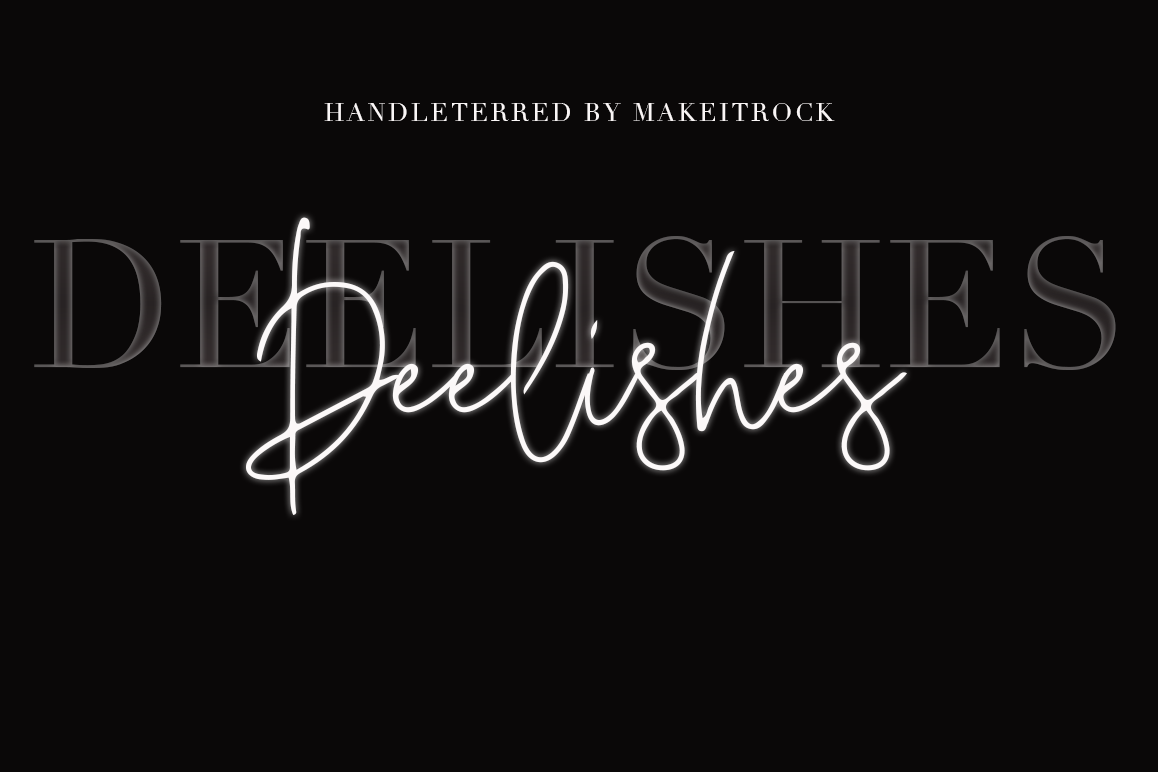
Deelishes
*A new fresh handmade summer loving calligraphy font.Very suitable for greeting cards, branding materials, business cards, quotes, posters, and more!This font are perfect for wedding postcard. Or you can create perfect and unique design of your logo, blog, stationery, marketing, magazines and more :)